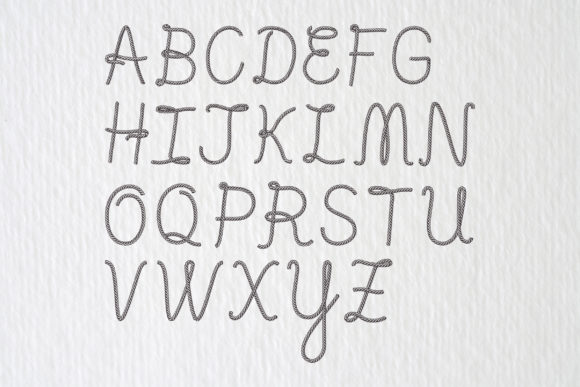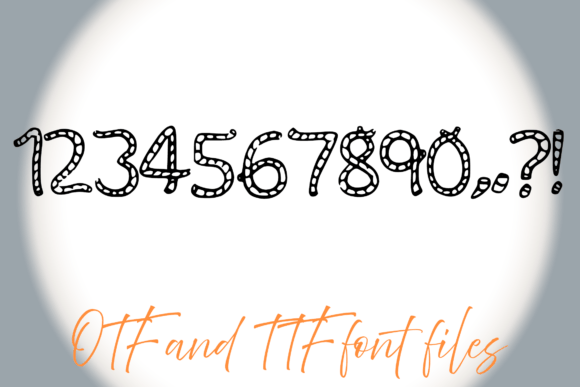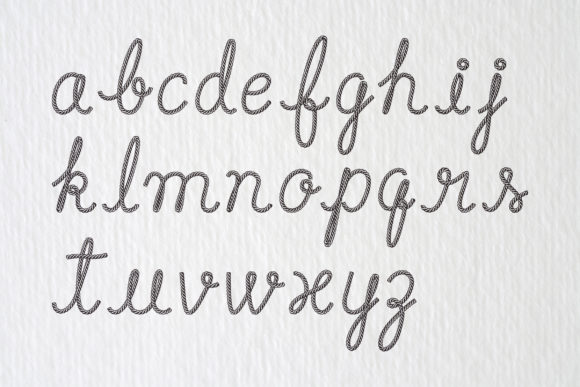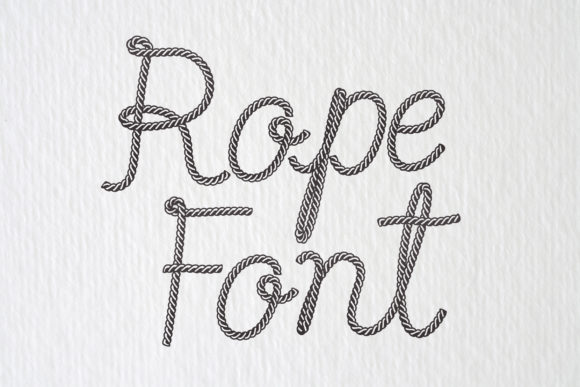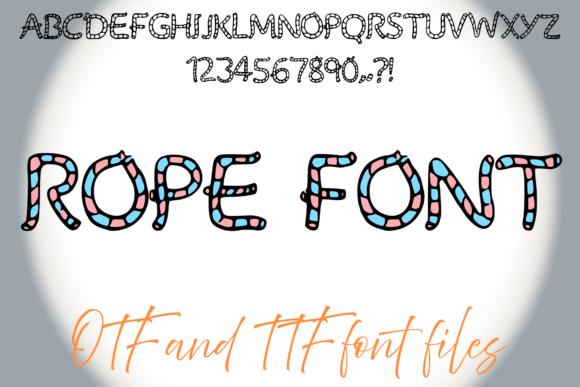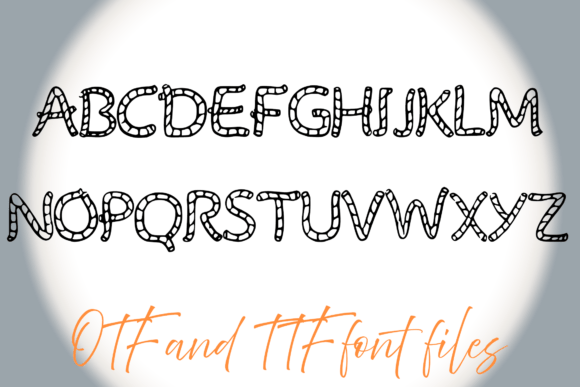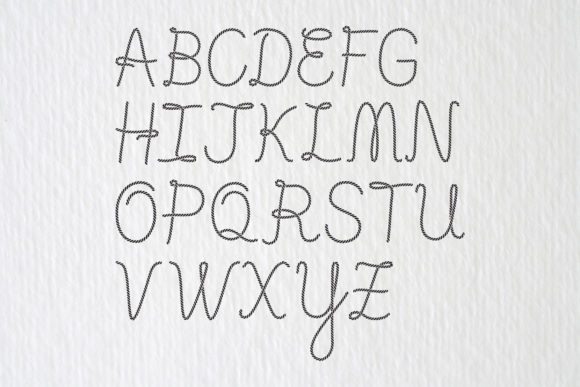
Rope Font
About the Rope Font
Elevate your designs with Rope Font, a font that combines sophistication with readability. Rope is a cool and uniquely designed decorative font. Whether you’re using it for crafting, digital designing, presentations or greeting cards making, it’s perfect!
Rope’s bold, slightly rugged character makes it ideal for headlines, short impactful statements, and branding applications where a strong, memorable visual is desired. It works exceptionally well for posters, packaging for rugged or handcrafted goods, and even short social media captions. However, its decorative nature makes it unsuitable for body text or lengthy passages; readability suffers at smaller sizes.
Consider pairing Rope with a clean sans-serif like Montserrat for a modern contrast, or a classic serif like Garamond for a more traditional feel. For a playful approach, a rounded sans-serif such as Lato could work well, balancing Rope’s strong lines with a softer aesthetic. Avoid pairing it with other highly decorative fonts to prevent visual clutter.
Rope projects a confident, adventurous personality, suitable for brands emphasizing craftsmanship, outdoor pursuits, or a vintage aesthetic. Its unique design makes it memorable and impactful within the right context.